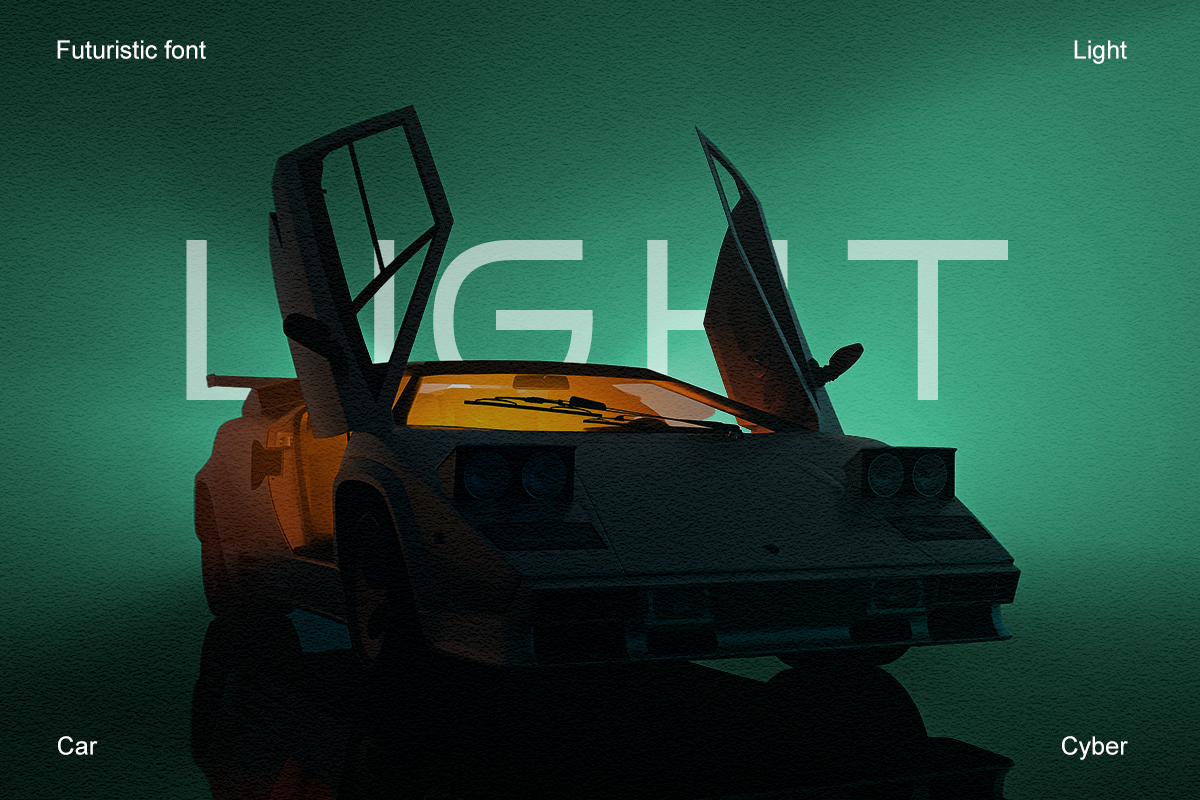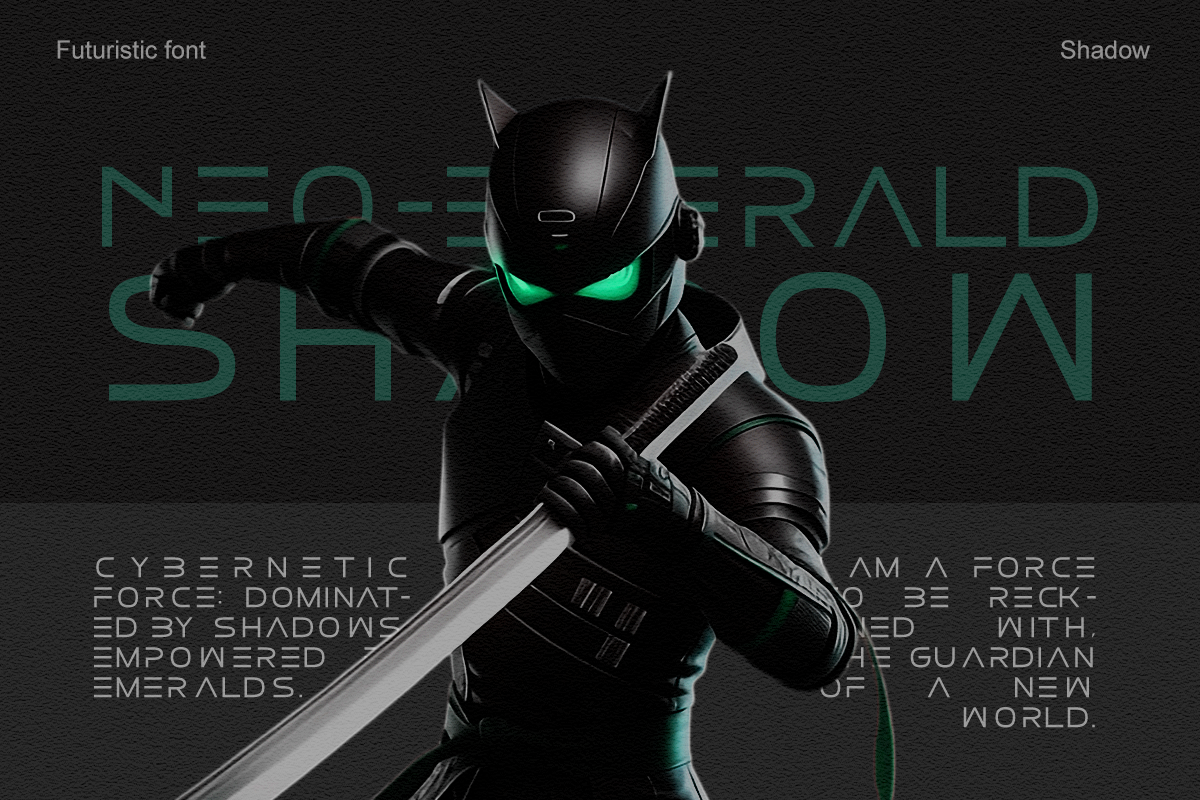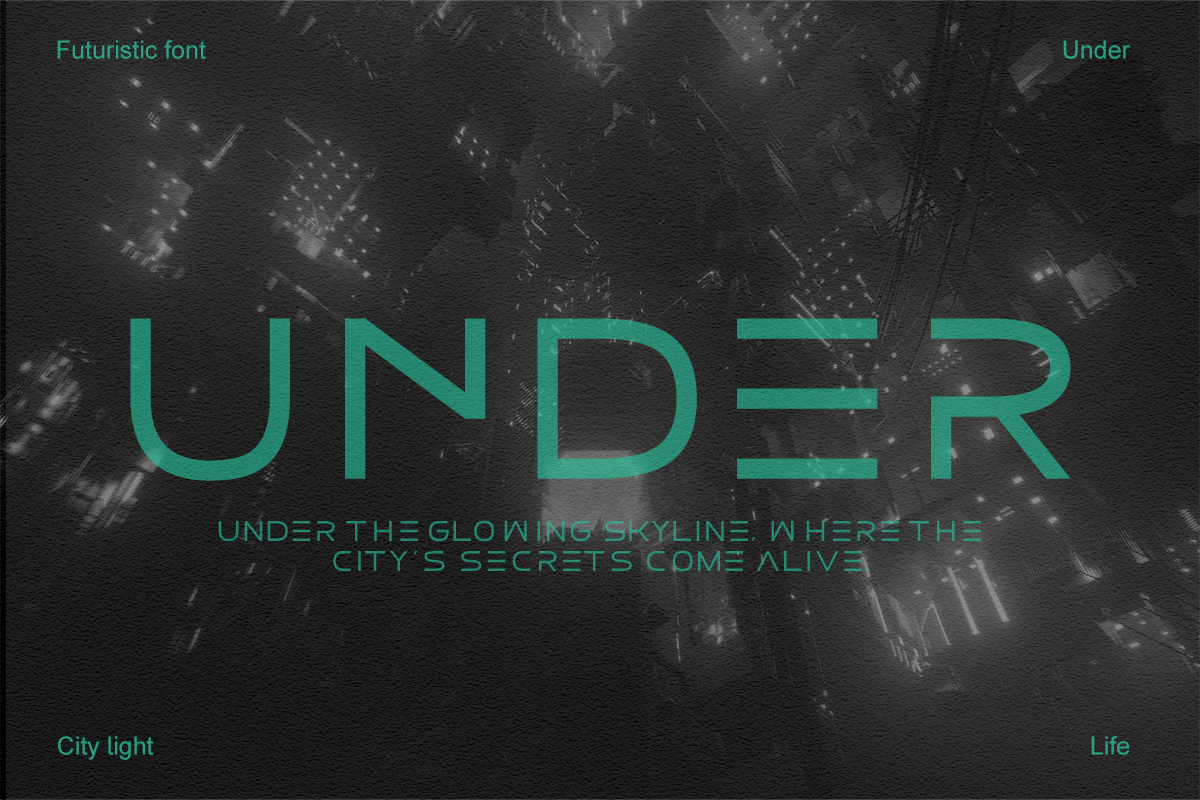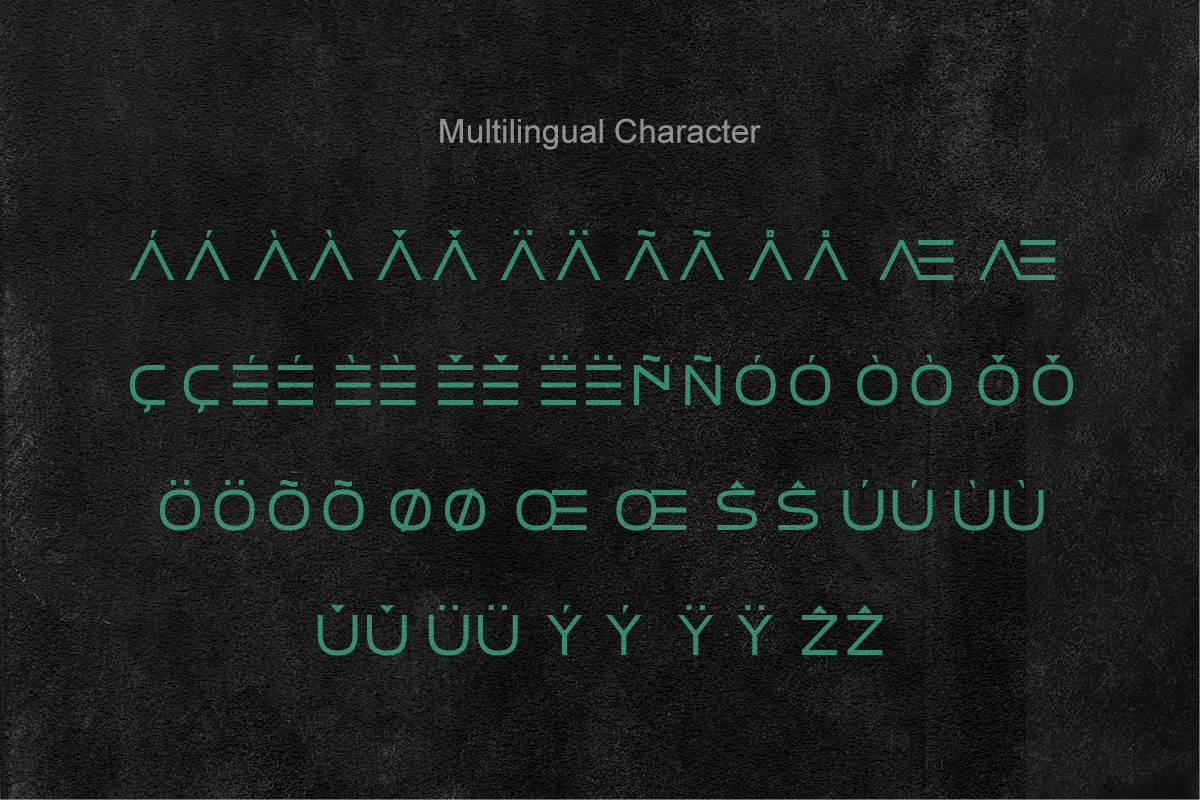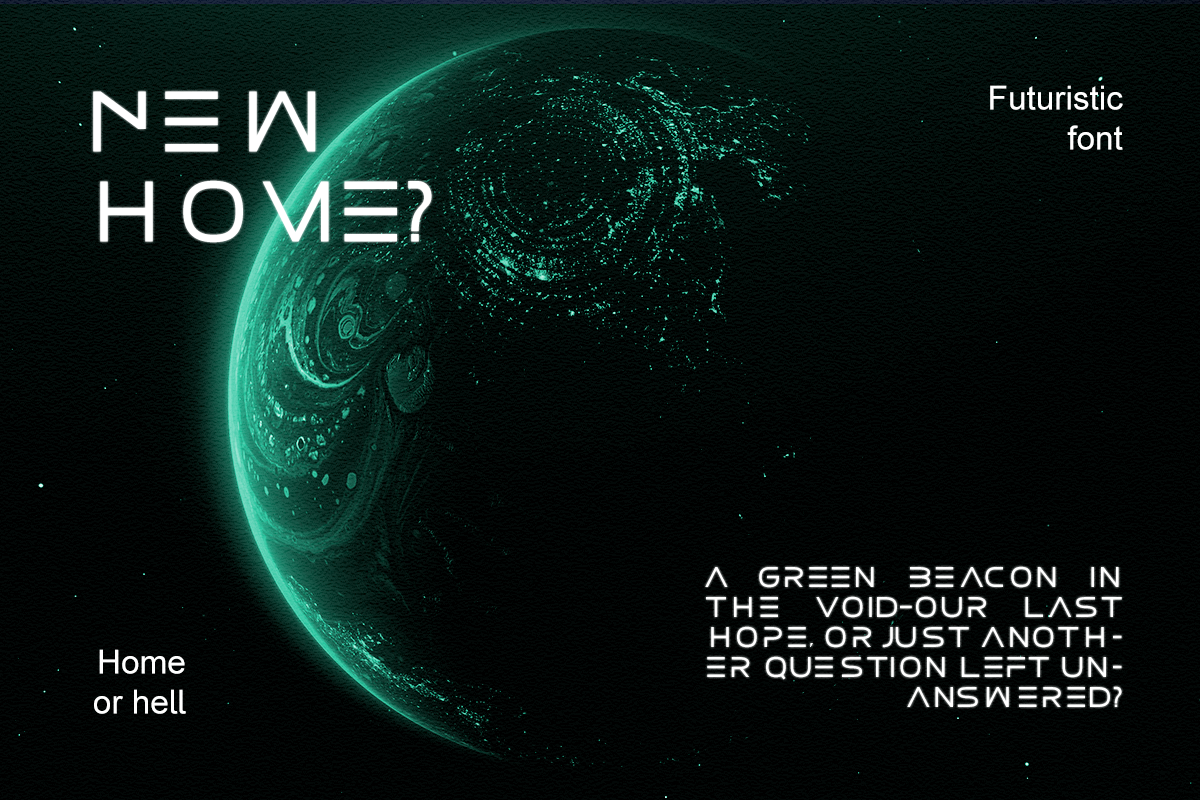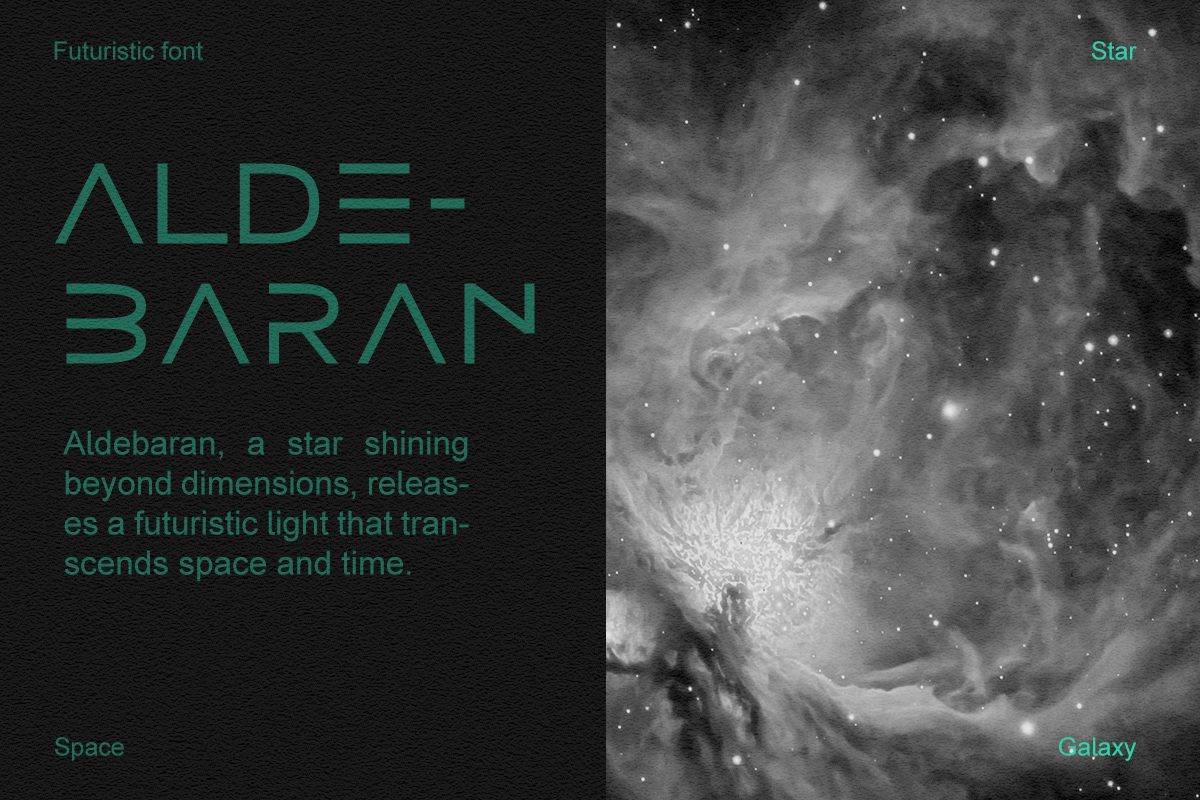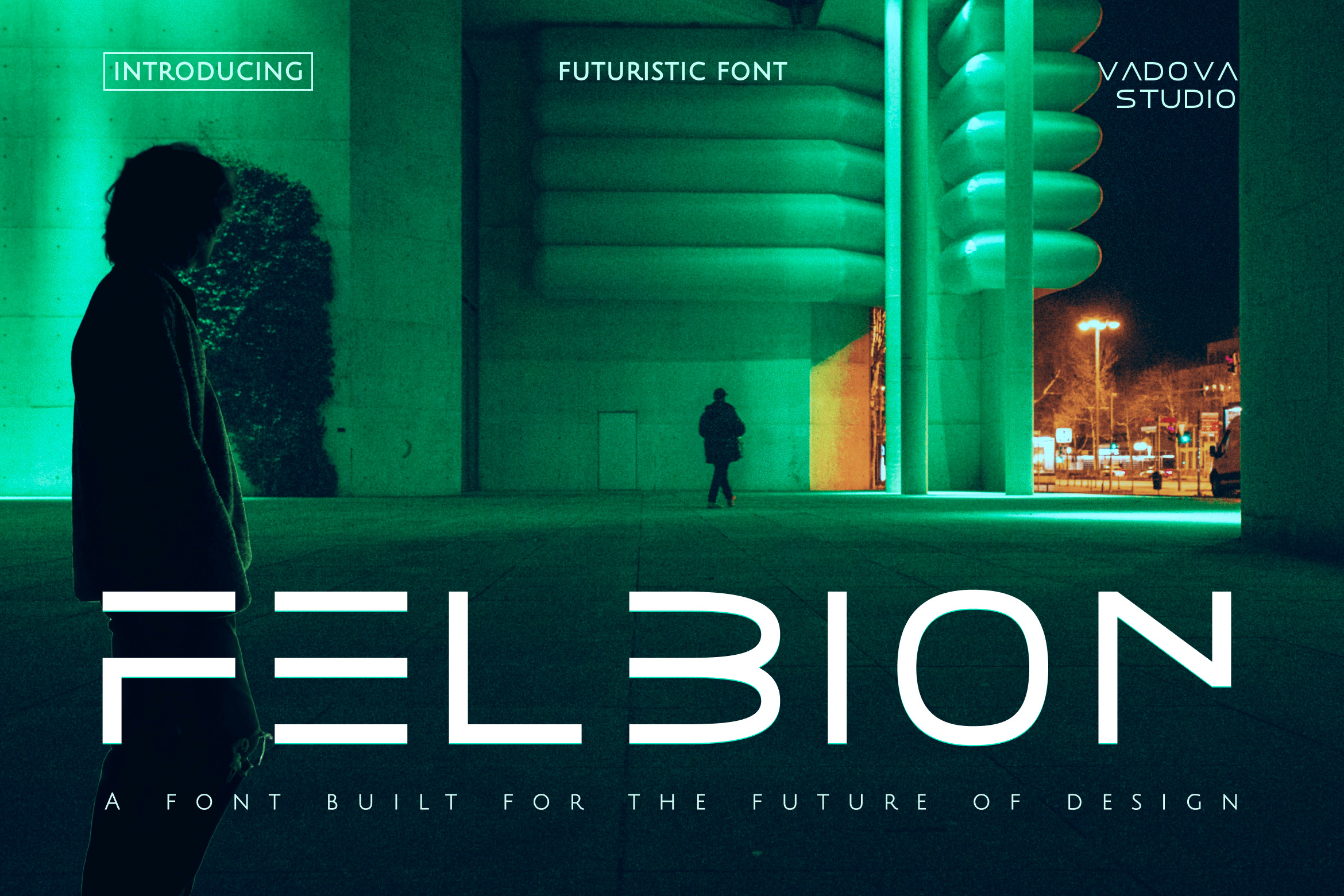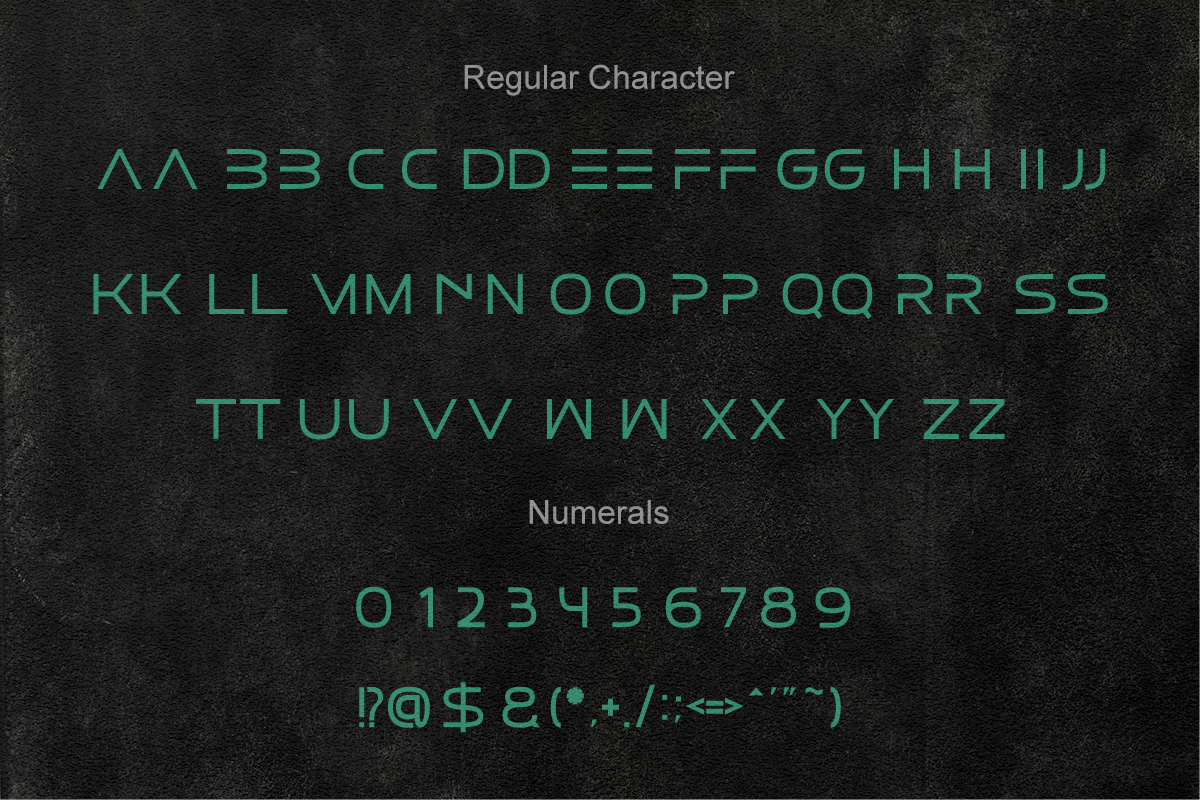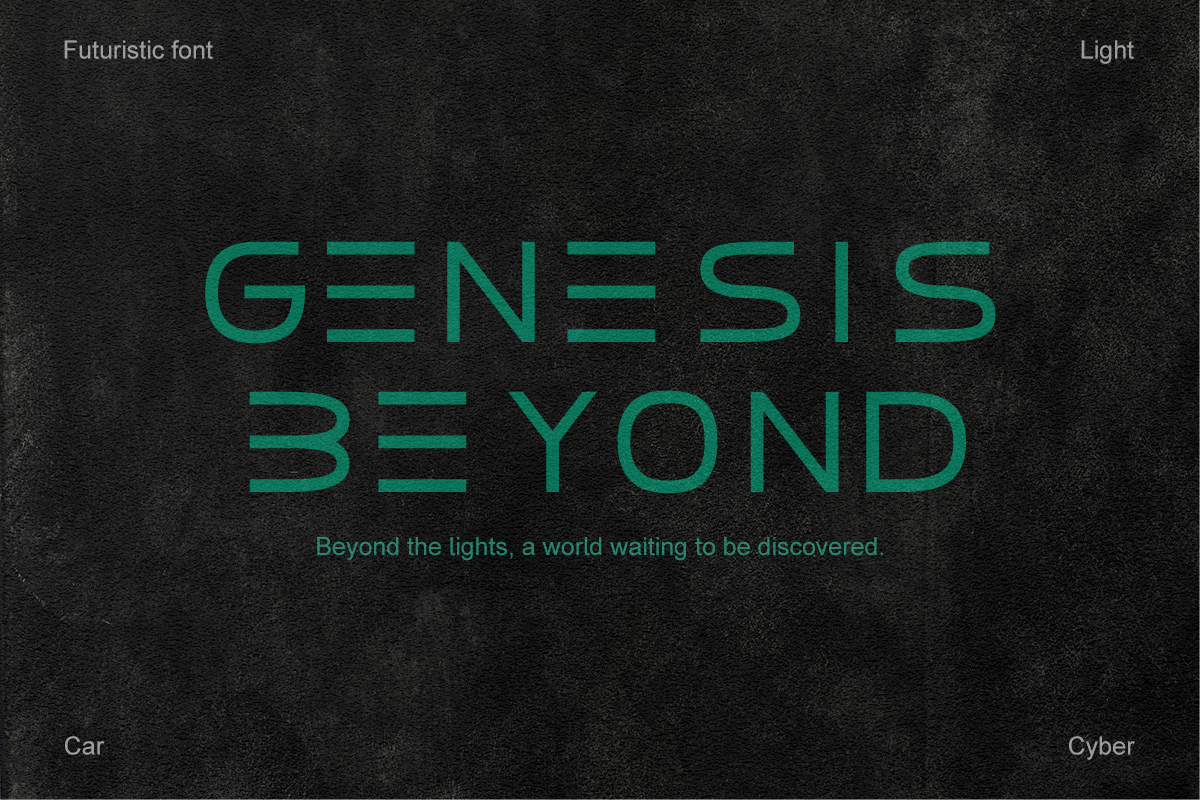
Felbion – Futuristic Display Font
Felbion is a futuristic display font crafted for the future of design. With its sharp geometry, clean cuts, and sci-fi inspired details, Felbion is perfect for projects that demand a modern, tech-driven, and visionary aesthetic.
Designed for UI/UX, gaming titles, movie posters, and digital branding, Felbion brings a cutting-edge futuristic vibe to both digital and print media.
✨ Highlights
Futuristic geometric sans serif style
Tech-inspired shapes with sci-fi character
Sleek and modern for innovative projects
Strong readability while maintaining unique flair
🎯 Best Uses
Technology Branding – bold futuristic identities
Gaming & Esports – dynamic, eye-catching titles
UI/UX & Apps – sleek typography for interfaces
Movie Posters & Trailers – sci-fi and cyberpunk aesthetics
Music & Album Covers – electronic and futuristic styles
Advertising & Social Media – modern visuals that stand out
Ligatures – for futuristic letter combinations
Alternates – stylistic glyph variations
Multilingual Support – covers multiple languages
Step into the future of typography with Felbion, a font built for innovation, creativity, and visionary design.